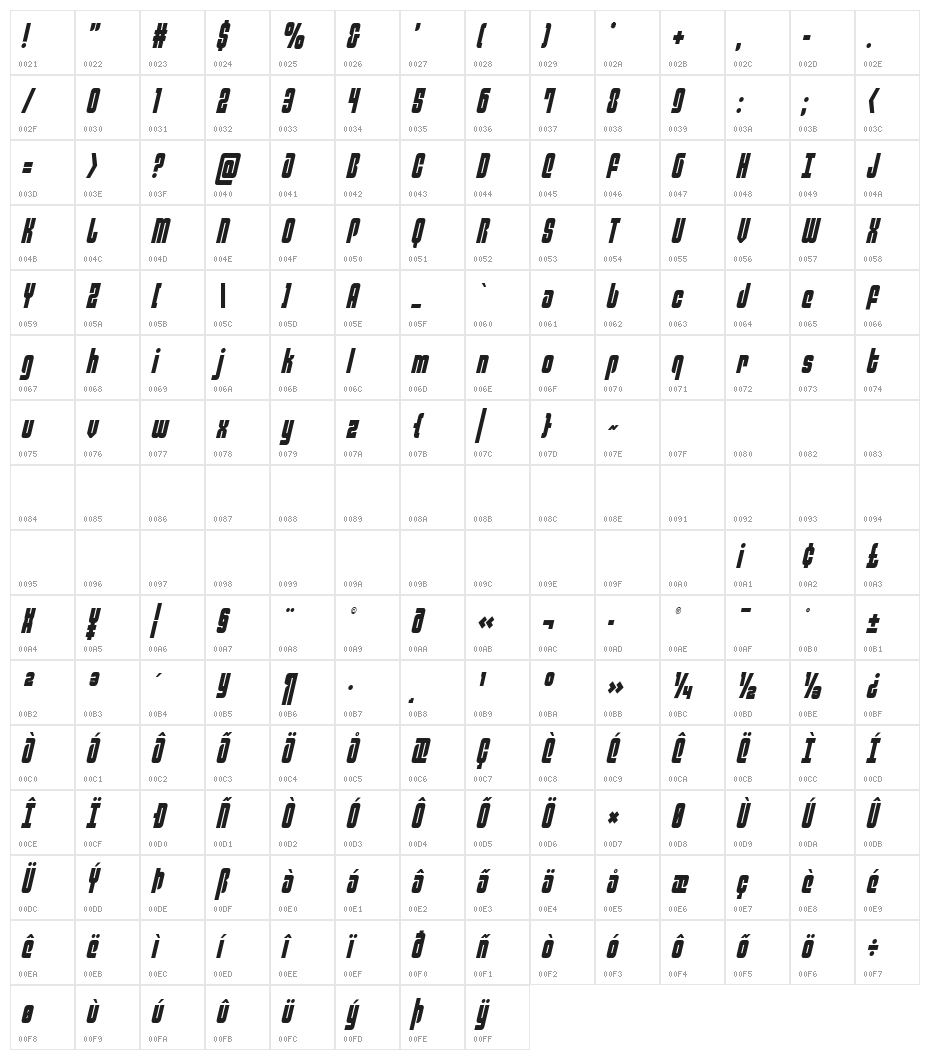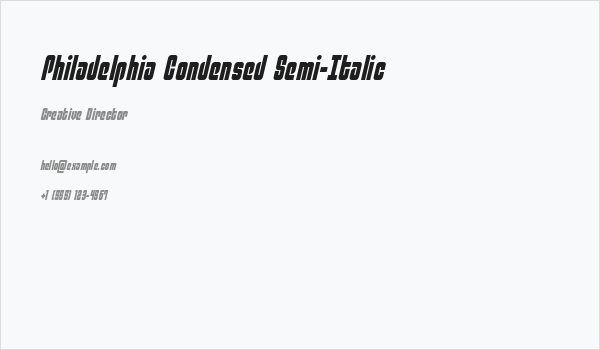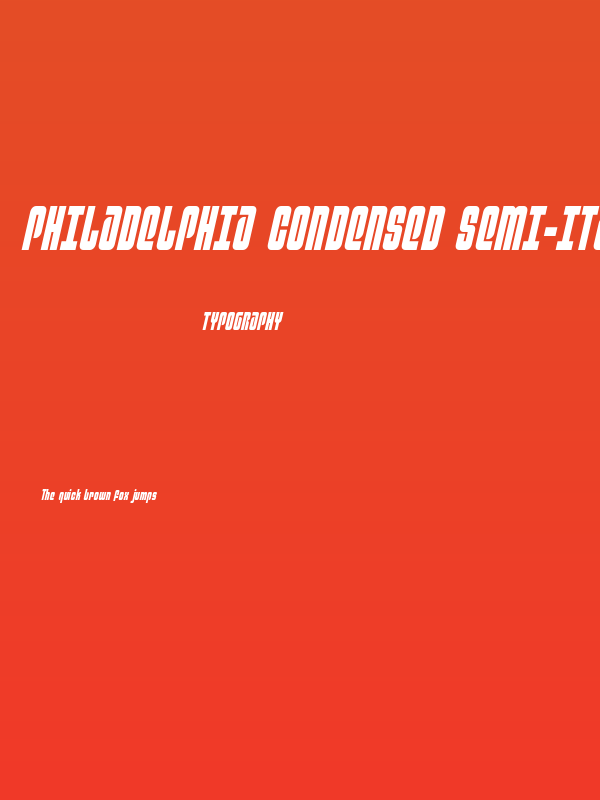
Philadelphia Condensed Semi-Italic Font
Philadelphia Condensed Semi-Italic Description
This font features a bold and condensed style with a semi-italic slant, giving it a dynamic and forward-leaning appearance. The characters are tightly spaced, enhancing the compact and impactful look. The uppercase and lowercase letters maintain a consistent weight, contributing to a uniform visual presence. The numbers and special characters are designed to match the boldness and slant of the alphabet, ensuring cohesive typography across different uses. The overall design is modern and assertive, making it suitable for attention-grabbing headlines and impactful statements.